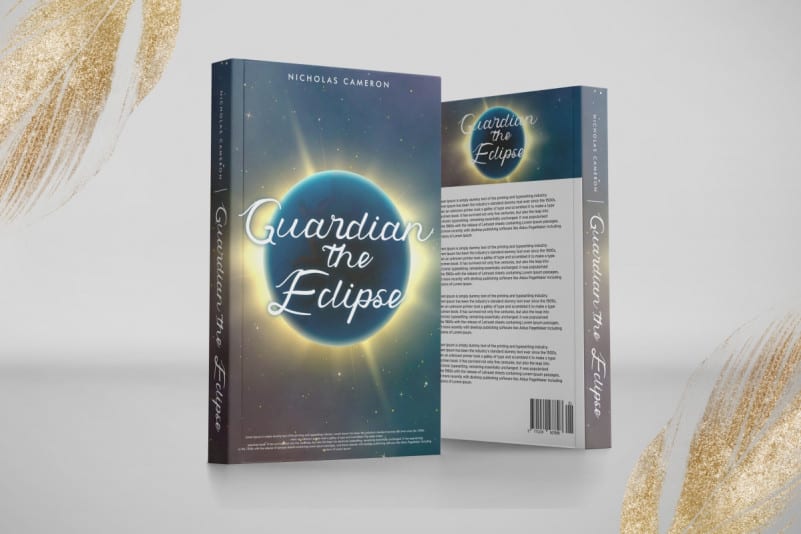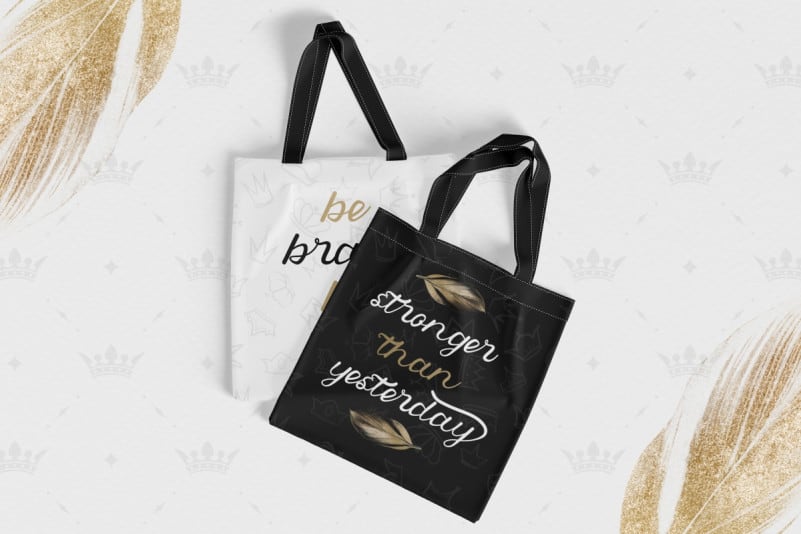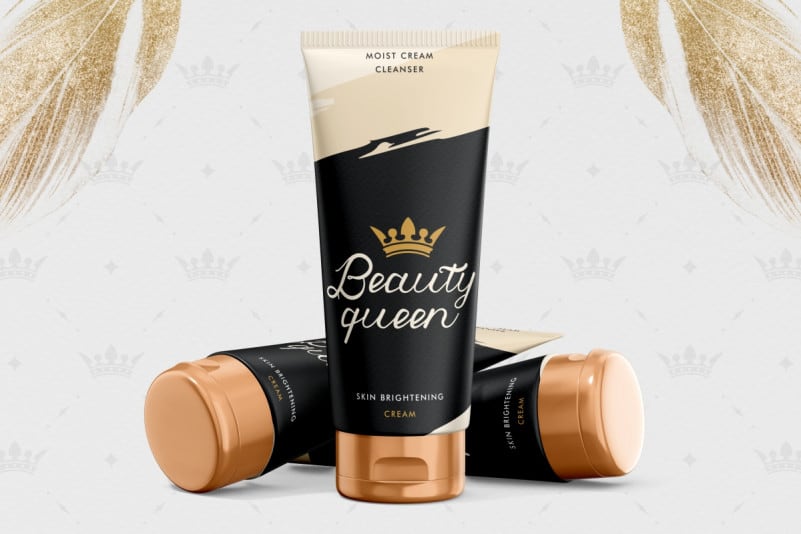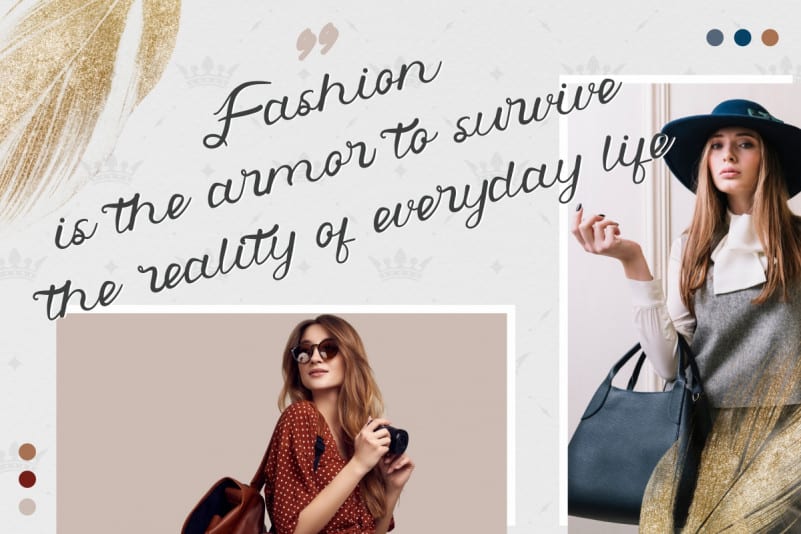
King Point Calligraphy Font
King Point Calligraphy Font was made remotely in Indonesia by RaisProject. The font was handcrafted With beautiful characters, it will be stunning for any your special projects including : weddings, promotion, events, branding, advertising, magazine, shopping, signage, invitation, stationery, social media posts, product packaging, product designs, label, photography, watermark or and any projects that need calligraphy handwriting style.
King Point Calligraphy Font includes full set of gorgeous uppercase and lowercase letters, numerals, a large range of punctuation and ligatures. All letters has realistic hand-lettered style to make it unique yet stunning design.